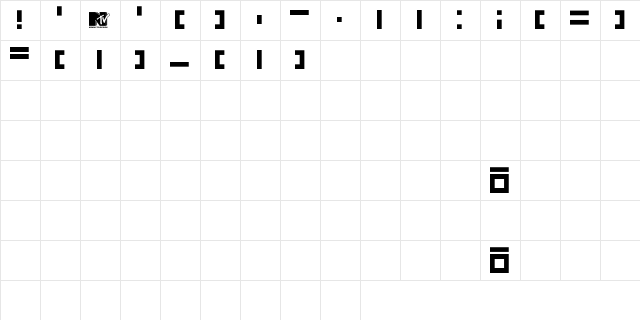
Vaderiii Regular
| Foundry | nowak.television |
| Designer | bartek nowak |
Design Context for Vaderiii Typeface
Vaderiii takes a measured approach to typography — its balanced proportions and neutral character make it a reliable workhorse for both digital and print work.